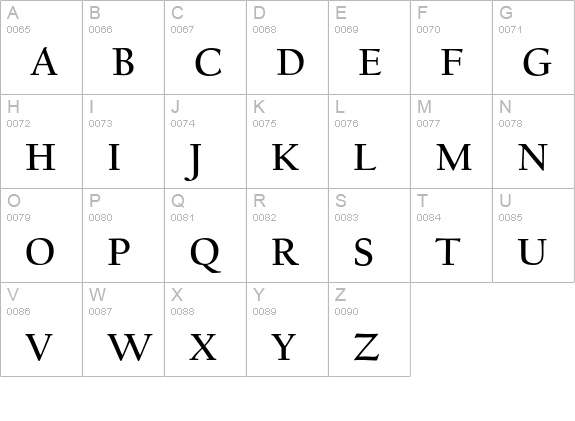
FBCalifornian-Bold is a strong, high-contrast variant in the FBCalifornian typeface family \xE2\x80\x94 well suited to headlines, attention-grabbing titles, and strong calls-to-action.
FBCalifornian-Bold is a versatile and stylish font that exudes confidence and modernity. With its bold and impactful design, this font is perfect for creating eye-catching headlines, posters, and branding materials. The clean lines and strong presence of FBCalifornian-Bold make it a popular choice for designers looking to make a statement. The best part? FBCalifornian-Bold is available for free download at FontsMarket.com, where you can easily access this striking font to elevate your design projects. Whether you're working on a print advertisement, website design, or any other creative endeavor, FBCalifornian-Bold is sure to add a touch of sophistication and flair. Download it now and let your creativity shine with this exceptional font.